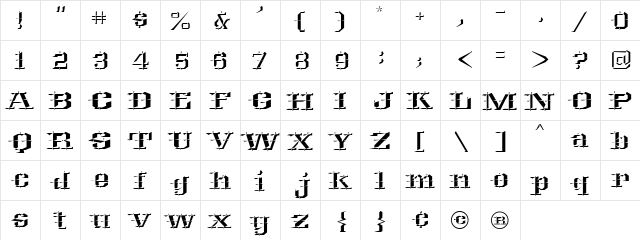
LHF Wall Dog CONVEX Regular
Design Context for LHF Wall Dog CONVEX Typeface
LHF Wall Dog CONVEX is a composed and adaptable typeface that performs quietly and consistently across a wide range of design contexts.
Pro Tip: Use LHF Wall Dog CONVEX in both headline and body roles to test its range before committing to a single application.